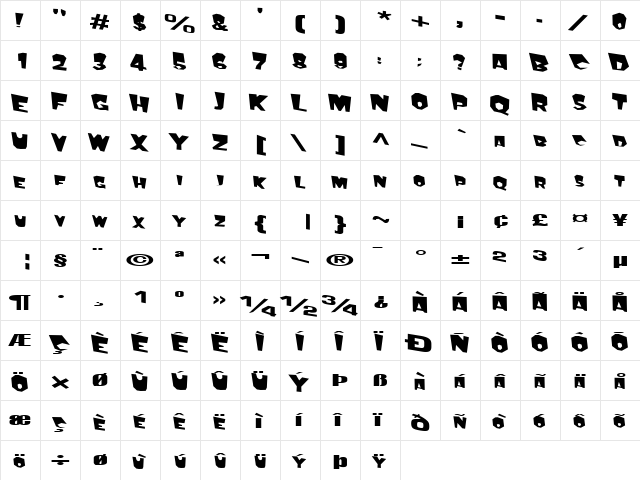
FuddyDuddy118 Regular
Design Context for FuddyDuddy118 Typeface
FuddyDuddy118 is a composed and adaptable typeface that performs quietly and consistently across a wide range of design contexts.